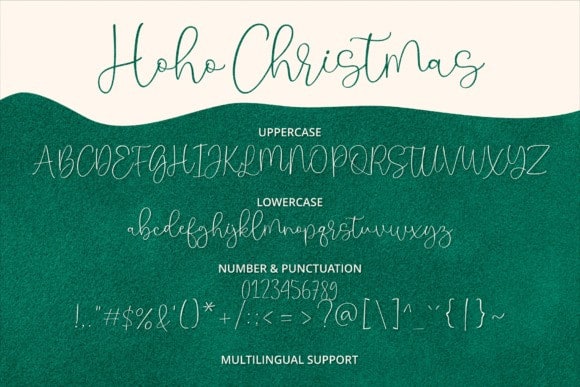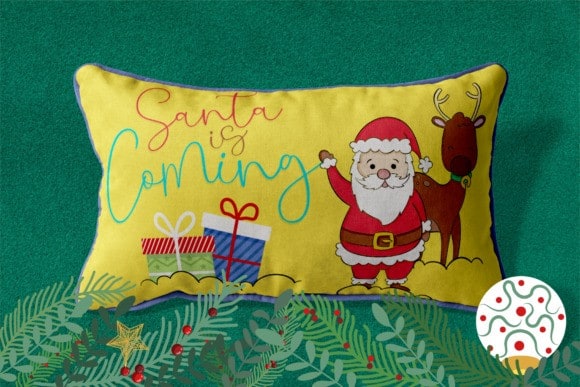
Hoho Christmas Font
Hoho Christmas Font is a beautiful super-casual style font with an authentic handcrafted feel. Made from font designer named brithostype. It’s an elegant and flowing handwritten font. Not too thin and not too thick, balanced and varied. This typeface is perfect for each of your winter designs. Add it confidently to your projects, and you won’t be disappointed. It is great for signature logos, posters, social media, wedding invitations, blog posts, headlines and more.